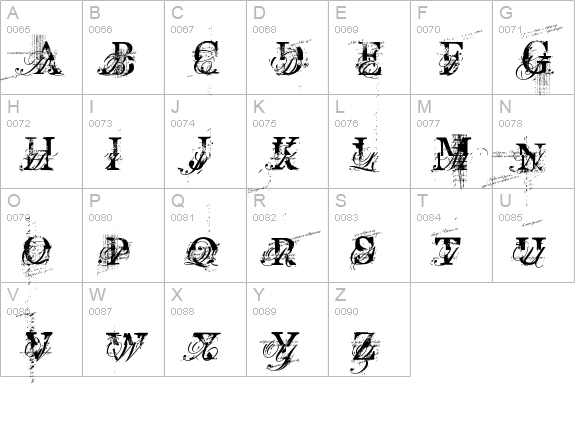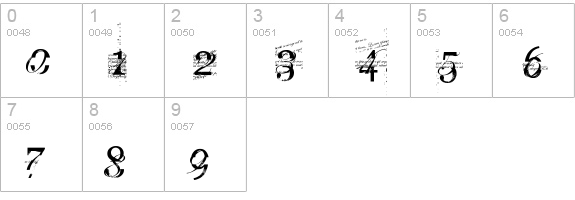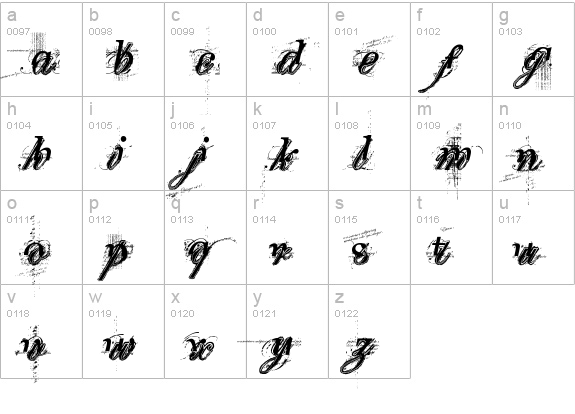
turbo ripped Font Details
Introducing Turbo Ripped Font – a bold and energetic typeface that exudes strength and power. The unique ripped design gives this font a dynamic and edgy look, perfect for making a statement in your designs. Whether you're creating posters, logos, or social media graphics, Turbo Ripped Font will add a touch of modernity and excitement to your projects. Best of all, Turbo Ripped Font is completely free to download at FontsMarket.com. This means you can use this eye-catching font in your commercial and personal projects without any restrictions. Don't miss out on this opportunity to elevate your designs with the striking Turbo Ripped Font – download it now and unleash your creativity!